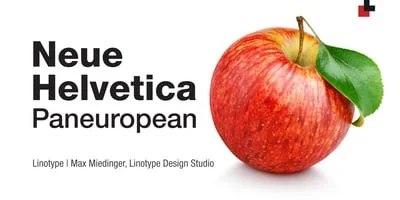
Neue Helvetica Paneuropean Font
Neue Helvetica Paneuropean Font is perfect for international projects including European Union publications, multinational corporate branding, global communication materials, international airline signage, cross-cultural marketing campaigns, diplomatic documents, pan-European educational resources, and worldwide institutional graphics. This comprehensive typeface brings Swiss precision and European unity to any design project.
What makes Neue Helvetica Paneuropean Font exciting is its extensive coverage of all European languages while maintaining the legendary clarity and neutrality of Helvetica design. The meticulously crafted character design includes comprehensive diacritical marks and special characters that ensure perfect readability across all European languages while preserving the iconic Swiss typography standards. This font delivers the ultimate solution for truly European communication needs.
The Neue Helvetica Paneuropean Font family typically includes multiple weights from light to black with corresponding oblique styles, complete Latin character sets covering Western, Central, and Eastern European languages, extensive diacritical marks, numerals, punctuation, and European symbols. The design incorporates refined spacing and advanced OpenType features optimized for multilingual applications across diverse European writing systems.
Whether you're designing for European institutions, international corporations, or cross-border organizations, Neue Helvetica Paneuropean Font delivers the universal accessibility that unifies diverse European audiences. Its comprehensive language support makes it ideal for diplomatic communications and multinational brand systems that require absolute consistency across all European markets. The font's pan-European heritage ensures it communicates unity and professionalism, making it perfect for any project requiring the authoritative aesthetic of European integration and international cooperation.